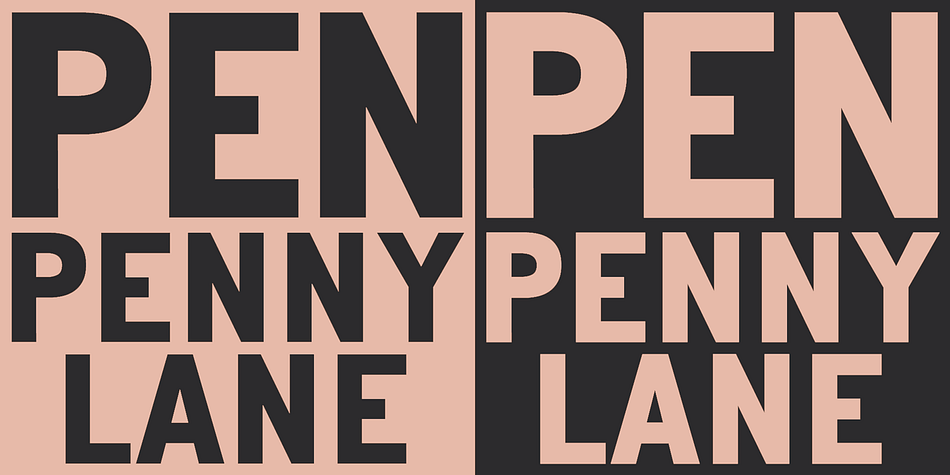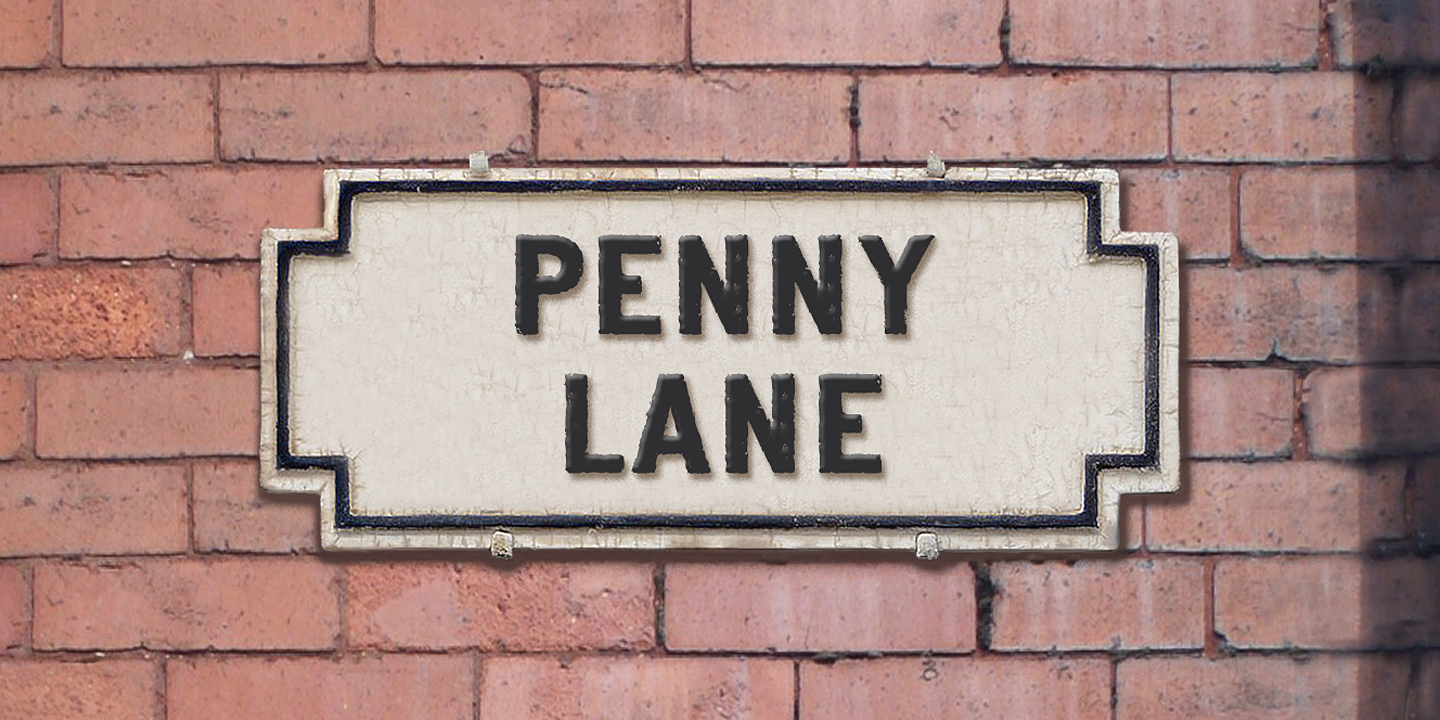
Penny Lane is a sans serif font family. This typeface has five styles and was published by K-Type.
PENNY LANE is a sans serif derived from twentieth-century cast-iron signs displaying Liverpool street names. Although the lettering used for vintage street signs varies in width and style, the semi-condensed Penny Lane Bold is fairly typical. The waist of letters like X and Y is positioned on the midline so may appear unusually high, the G is without a crossbar, and pointed characters like the Z might seem at odds with generally grotesque letter shapes.
Penny Lane is a straightforward, usable sans that looks modern and has a fresh lowercase with a healthy x-height designed for clarity; the fonts have been inspired by street sign lettering rather than insensitively tied to historical accuracy. A full complement of Latin Extended-A characters is included. Four nameplate frames can be found within each font for designing faux street signs, and a blank nameplate jpeg is also supplied.
The download consists of five fonts – Regular, Italic, Bold and Bold Italic weights, and also a distressed Corroded Bold, made to simulate the roughness of cast and painted letters when creating reproduction signs.